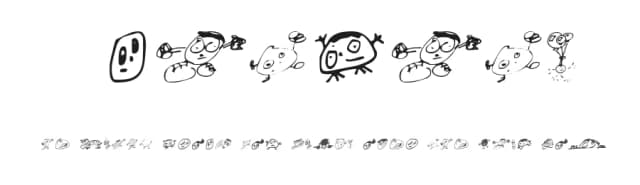
About Dispute Font
Dispute is a decorative font designed by Bionic Type. It includes 67 glyphs, a thin weight, TTF (TrueType) format, and 89 languages. Dispute is free to download; check the license details on this page before commercial use. Decorative fonts like Dispute work best for logos, posters, packaging, and standout headlines.
Dispute Font is a decorative font that shines as a display or heading face. Pair it with a clean sans-serif or serif font for body text β the contrast creates a clear hierarchy while the two styles stay balanced and easy to read.
Dispute Font
by Bionic Type
Dispute Font is a decorative typeface by Bionic Type, ideal for logos, invitations, branding, and creative projects.